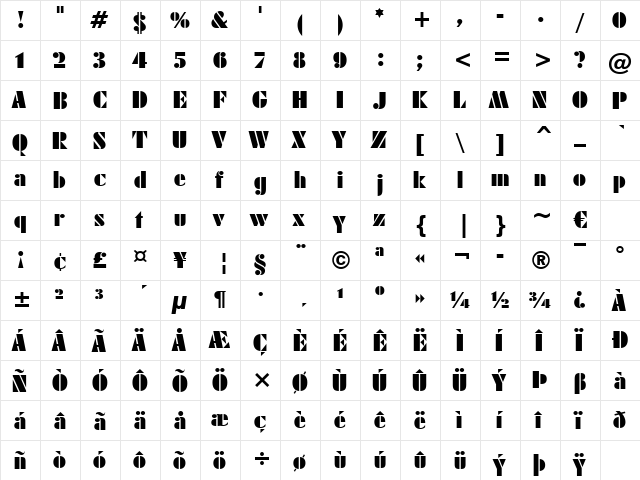
FuturaBlack WGL4 BT Regular
Design Context for FuturaBlack WGL4 BT Typeface
FuturaBlack WGL4 BT channels digital-age aesthetics through its sharp, structured letterforms — ideal for brands that want to signal innovation.
Pro Tip: Use FuturaBlack WGL4 BT in combination with a neutral sans for body text. Let it define the brand voice in headlines while keeping reading comfortable elsewhere.